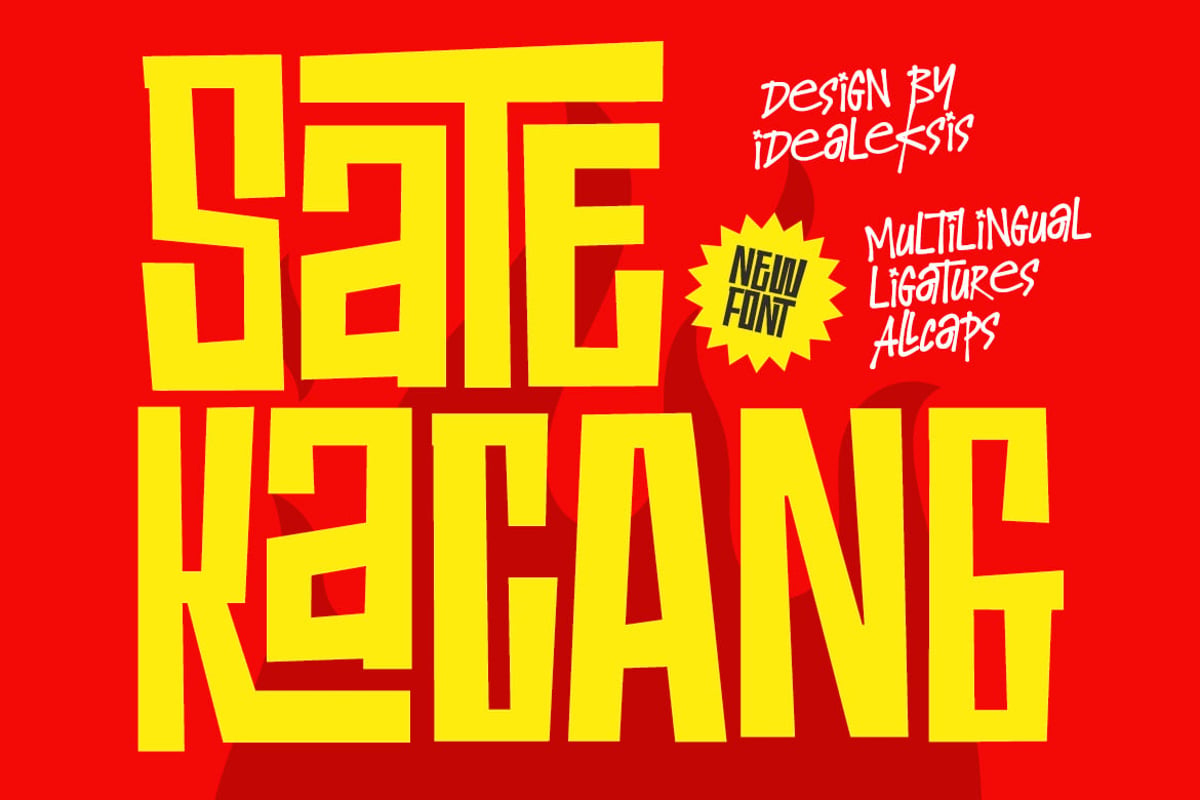
Sate Kacang - Food Font
Make your food brand pop with this bold, paper-cut inspired display font that demands attention.
This distinctive typeface features blocky letterforms with irregular, sharp angles and a heavy weight that creates powerful visual impact. The hand-crafted aesthetic utilizes negative space creatively, resulting in rhythmic and dynamic flow that brings energy and personality to any project.
The energetic and informal style makes it perfect for creating memorable branding that stands out from the crowd.
- Uppercase (All Caps)
- Alternate characters
- Numerals
- Punctuation
Perfect for:
- Bakery and café branding
- Food and beverage logos
- Restaurant menus and signage
- Coffee shop and donut shop designs
- Food packaging and labels
- Social media food promotions
- Kitchen-themed posters and prints
- Culinary blogs and recipe graphics